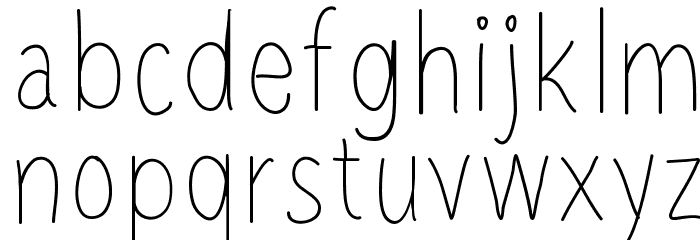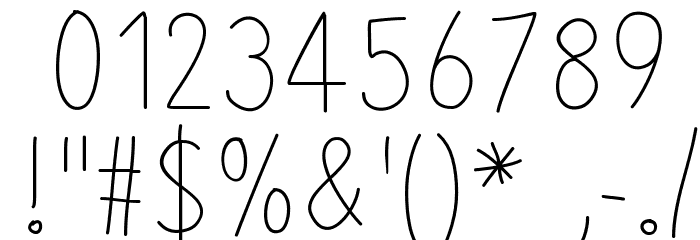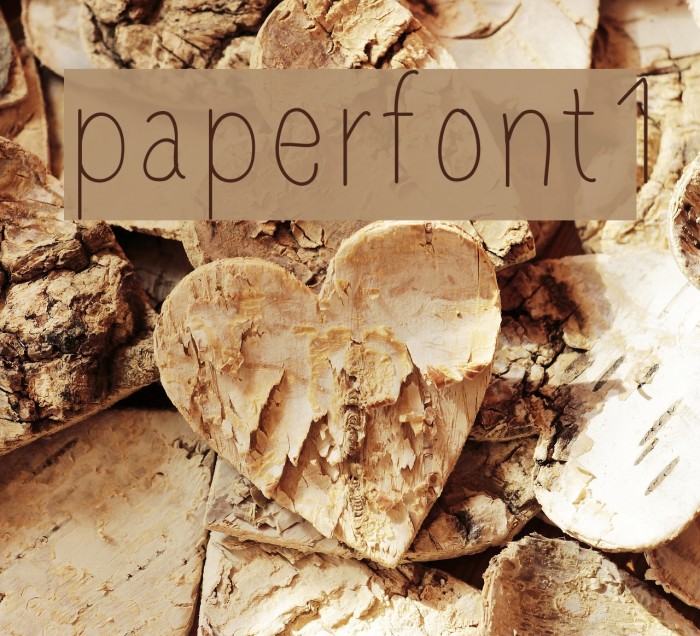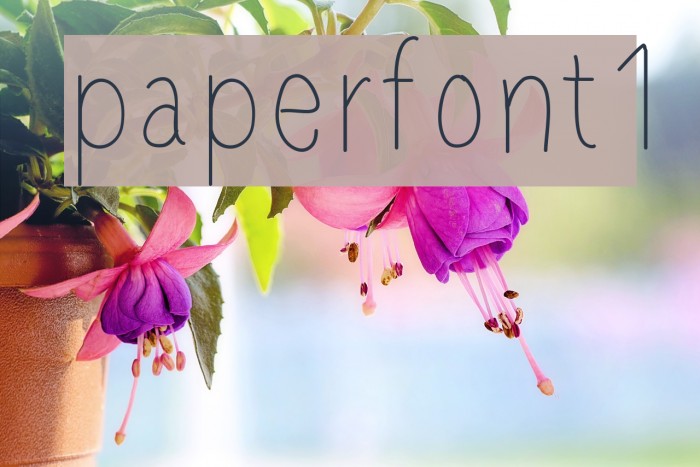
paperfont1 Font
This font features a playful and whimsical style with tall, narrow characters that have a hand-drawn appearance. The strokes are consistent in thickness, giving it a uniform look while maintaining a casual and approachable feel. The uppercase letters are slightly taller than the lowercase, and the numbers are clear and easy to read. The special characters are well-integrated, matching the overall aesthetic. This font is ideal for projects that require a friendly and informal touch.
A playful, hand-drawn font with tall, narrow characters and consistent stroke thickness.
- Proposed Projects: Ideal for children's books, greeting cards, casual branding, and playful posters.
- Overall Style: Casual
- Use Case: Headlines, Informal text, Creative projects